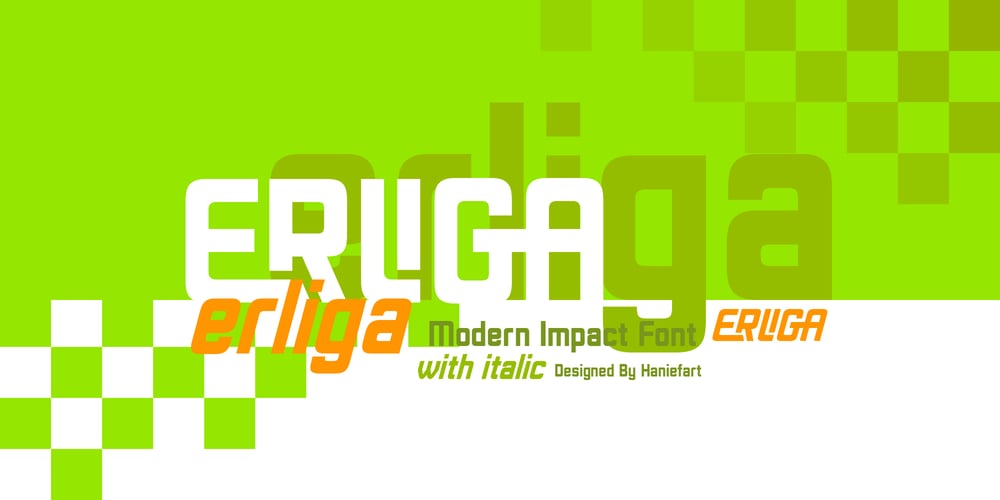
Erliga
Erliga font
Erliga Font Family was designed by Hanif Maulazi and published by Haniefart. Erliga contains 2 styles and family package options. Erliga is a handcrafted and athletic impact sans serif font with an elegant, beautiful and modern look. Erliga comes in regular and italic versions, also includes upper and lower case letters, as well as symbols and punctuation. Suitable for company branding, film titles, book covers, magazines, logos, also for team sports and many others.